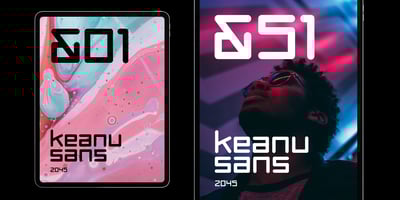
Keanu
Keanu font
Keanu Font Family was designed by Debora Soares and published by Soares. Keanu contains 2 styles and family package options. Keanu is a display sans serif square typeface, with a strong visual impact. Defined by its dramatic squaring with curved strokes, this typeface is perfect for headings, signage systems, interface designs, branding and more.